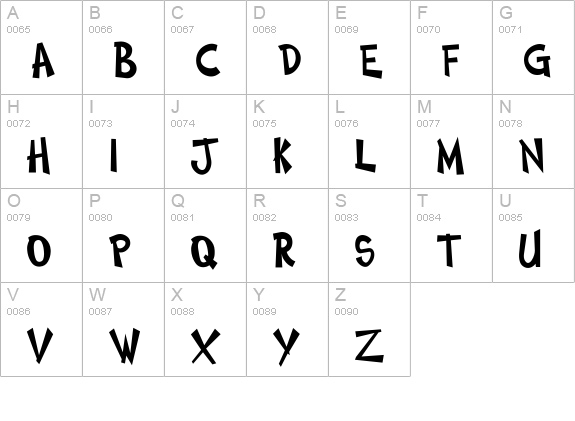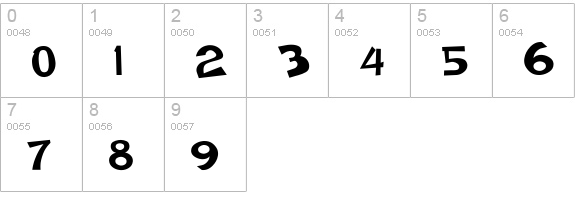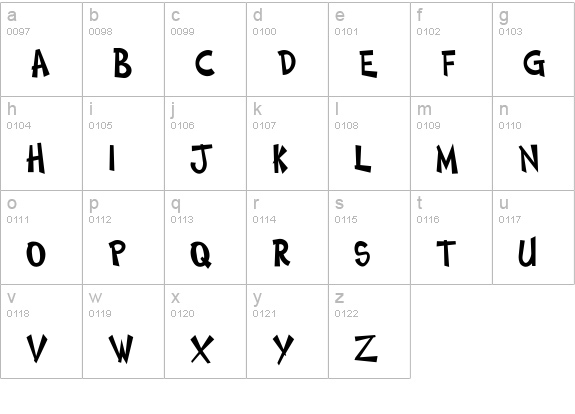
ComicsTwo Font Details
ComicsTwo font is a playful and vibrant typeface that brings a sense of fun and whimsy to any design project. With its bold and comic-inspired appearance, this font is perfect for creating eye-catching headlines, posters, and comic book titles. Whether you're a professional designer or a hobbyist looking to add a touch of creativity to your work, ComicsTwo font is sure to make a statement. One of the best things about ComicsTwo font is that it is completely free to download at FontsMarket.com. This means that you can easily access this unique and versatile font without any cost, making it a valuable addition to your font collection. So why wait? Download ComicsTwo font today and unleash your creativity with this fantastic typeface!